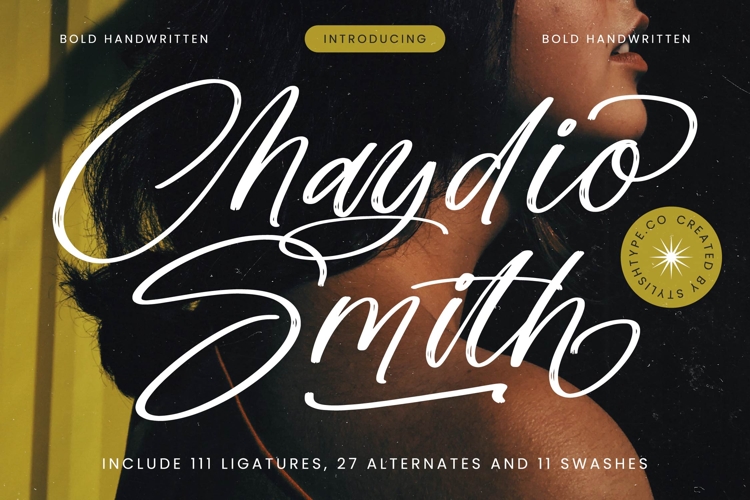
Chaydio Smith - Bold Handwritten Font
Discover the artistry of authentic handwritten design with Font Chaydio Smith - Bold Handwritten Font Script, a typeface that blends bold energy with sophisticated elegance. This script font exudes a captivating, organic flow, characterized by expressive brushstroke details and dynamic connections. Its distinctive, high-contrast presence ensures your message stands out, imbuing projects with a deeply and artistic touch.
Unleash unparalleled creative flexibility with Font Chaydio Smith - Bold Handwritten Font Script, designed for maximum impact and adaptability. Enriched with comprehensive OpenType features including numerous ligatures, alternates, and swashes, it allows for truly customized typography. With its extensive multilingual support, Font Chaydio Smith - Bold Handwritten Font Script adapts seamlessly across global markets, making it incredibly versatile for international projects.